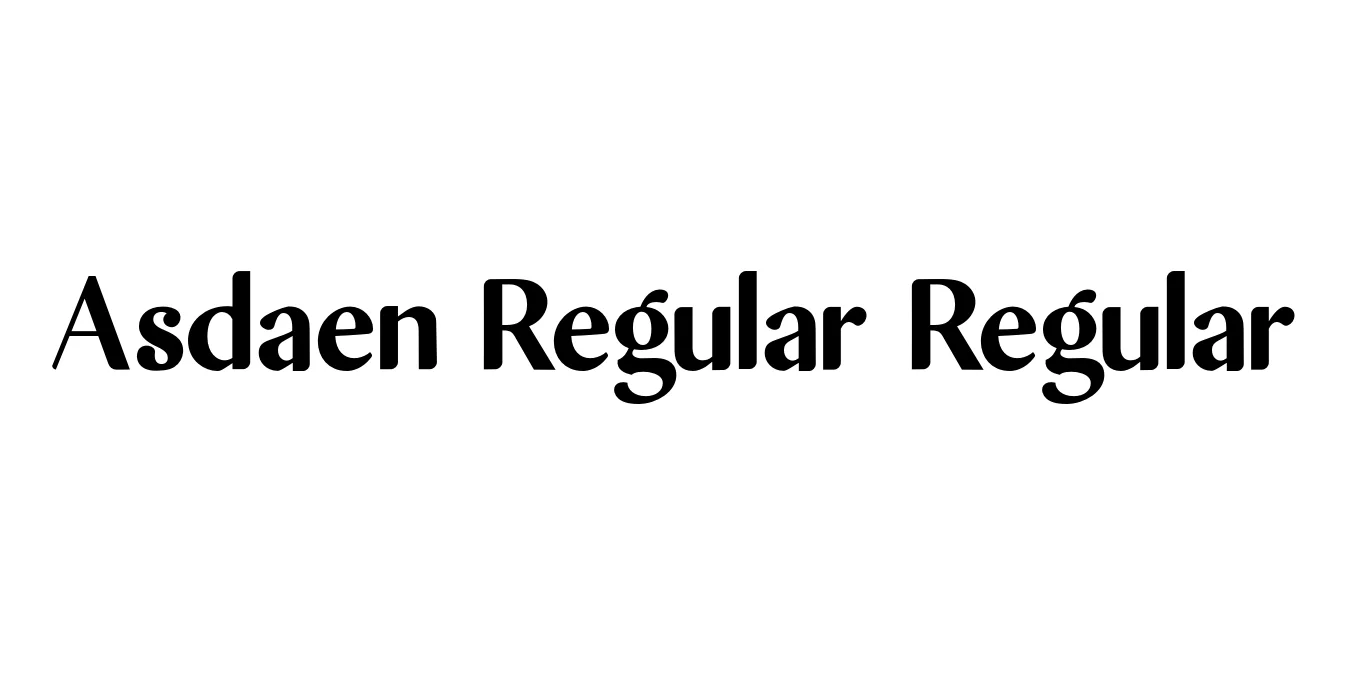
Asdaen Regular Regular
Asdaen Regular is a sophisticated and modern serif typeface that combines classical proportions with a contemporary flair. Designed by Alit Design, this font features high-contrast strokes and elegant terminals that make it an ideal choice for luxury branding and high-end fashion projects. Its architectural structure is rooted in traditional serif styles but updated with unique curves that give it a distinctive personality suitable for 21st-century aesthetics.
This typeface is highly versatile, offering excellent legibility in both print and digital formats. The Asdaen Regular font package often includes a variety of stylistic alternates and ligatures, allowing designers to create customized typographic layouts that feel bespoke and professional. From magazine editorials to corporate identity systems, it provides a refined touch that elevates the visual communication of any creative project.
Asdaen Regular Best Uses
Perfect for creating sophisticated and high-end brand identities for luxury labels.
Ideal for magazine headlines, mastheads, and high-fashion article body text.
Adds a refined and romantic touch to invitations, menus, and formal announcements.
Great for creating aesthetic quotes and high-contrast promotional graphics for Instagram.